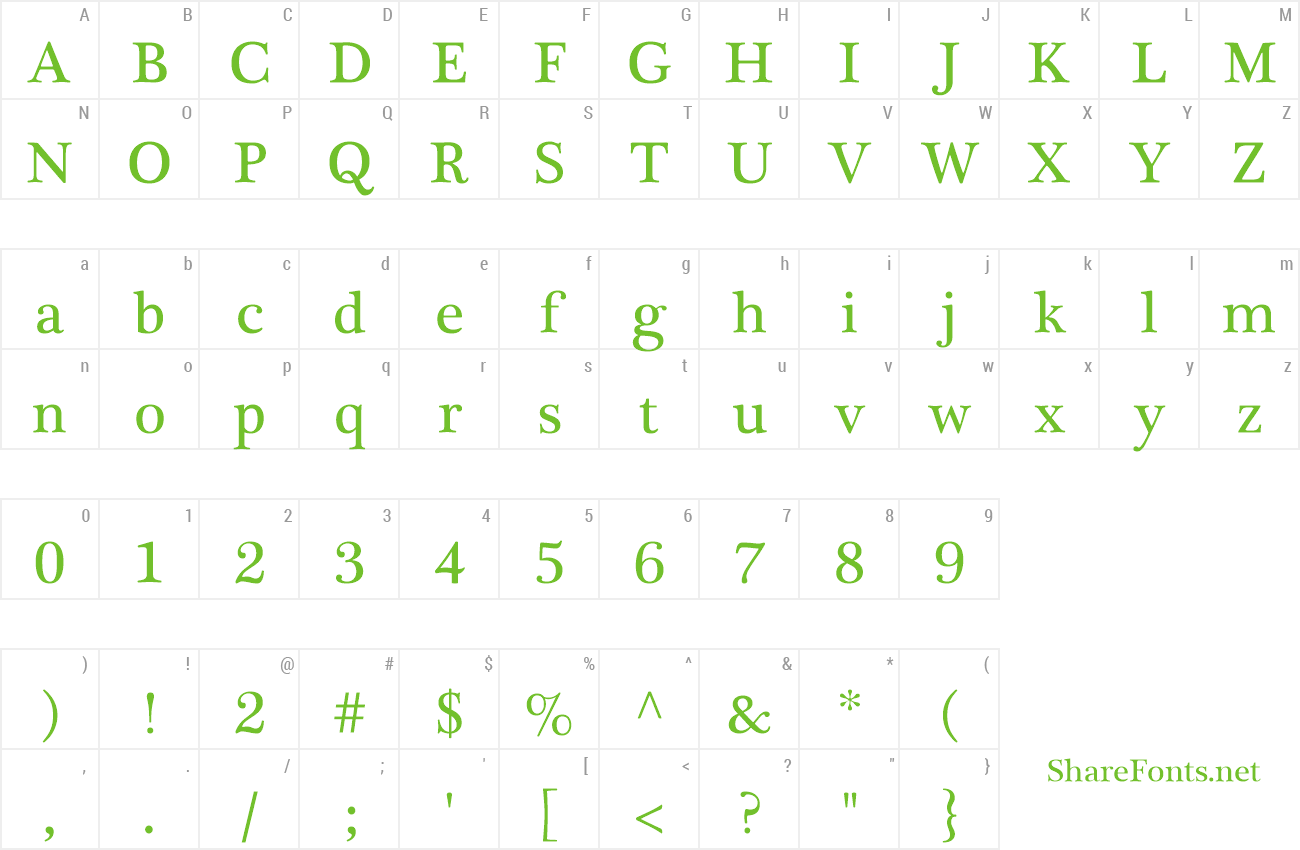
Plantagenet Cherokee Font
Plantagenet Cherokee Font - Web learn about the plantagenet cherokee font, a free fancy typeface designed by ross mills that can be used for various purposes. Web plantagenet cherokee font.
Web plantagenet cherokee font. Web learn about the plantagenet cherokee font, a free fancy typeface designed by ross mills that can be used for various purposes.
Web learn about the plantagenet cherokee font, a free fancy typeface designed by ross mills that can be used for various purposes. Web plantagenet cherokee font.
Web plantagenet cherokee font. Web learn about the plantagenet cherokee font, a free fancy typeface designed by ross mills that can be used for various purposes.
Web Learn About The Plantagenet Cherokee Font, A Free Fancy Typeface Designed By Ross Mills That Can Be Used For Various Purposes.
Web plantagenet cherokee font.